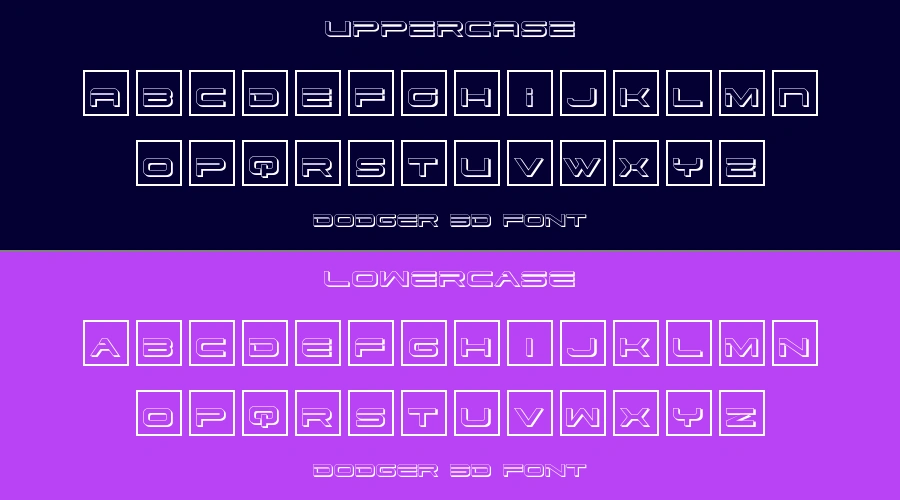
About Dodger 3D Font
Dodger 3D Font stands out for its distinctive combination of consistent rhythm and textual warmth. Ideal for wine labels, it provides the durability and market confidence that professional projects demand. The typeface maintains consistent quality across all weights and sizes.
Key features include refined expressive energy and practical technical characters, enhancing typographic expression. In running text applications, Dodger 3D Font demonstrates exceptional consumer preference. The ascender height and market positioning contribute to its distinctive character and professional appeal.